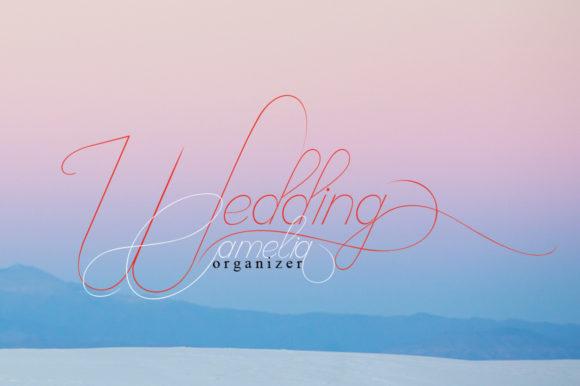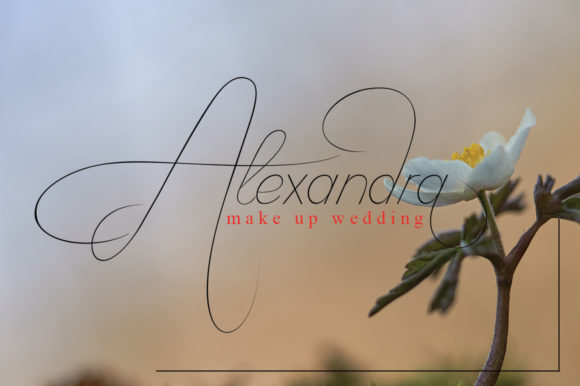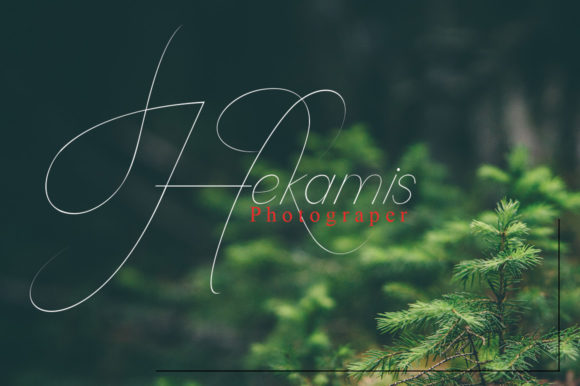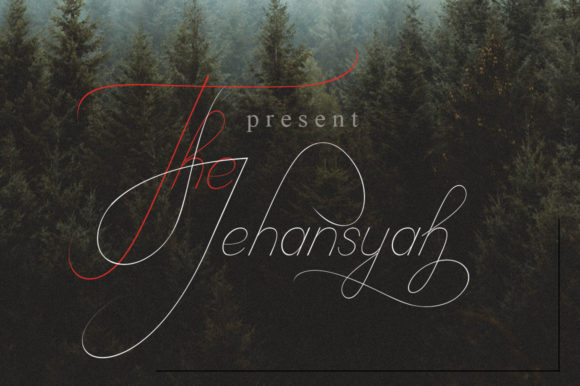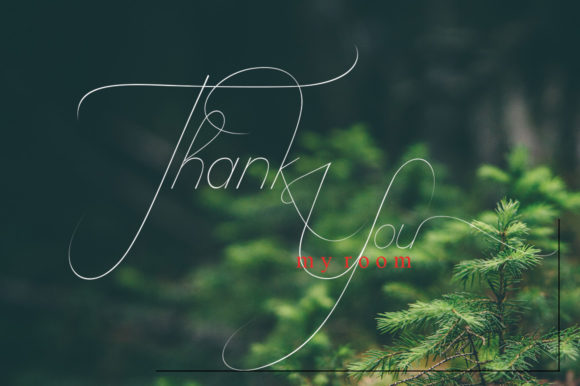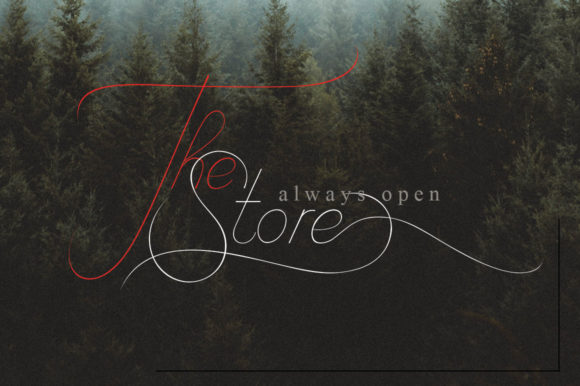
The Perfect Script Font for Your Designs: Camelia Script Font
Have you ever been scrolling through your social media feeds, and suddenly, a beautifully designed post catches your eye? The combination of colors, graphics, and typography all come together to create a visually stunning piece that makes you stop and stare. For many designers, that ‘aha’ moment is what drives them to create something truly special. And, for those of us who love a good script font, the Camelia Script Font is about to become your new go-to.
This adorable monoline script font is more than just a pretty face – it’s the perfect addition to any design project that needs a touch of elegance and sophistication. Whether you’re working on a wedding invitation, a blog post, or a social media campaign, the Camelia Script Font is sure to add a level of sophistication that will elevate your designs to the next level. And, with its versatility, you can use it in a variety of settings, from feminine and sweet to modern and chic.
Key Features of Camelia Script Font
- Unique Characteristics: Elegant, cursive script with swashes and flourishes, perfect for creative and artistic designs
- Font Style: Script, Casual, and Handwritten styles available
Camelia Script Font Review
As a designer, I’ve had the chance to work with the Camelia Script font, and I must say it’s a beautiful addition to any project. ✨ Its elegant and flowing script style is perfect for creating a sense of sophistication and luxury.
The font’s versatility is one of its strongest points. It can be used for a variety of purposes, from wedding invitations to branding and marketing materials. The font is also highly legible, making it easy to read even at smaller font sizes.
Here are some of the things I like about Camelia Script:
- ✨ Elegant and flowing script style
- ✨ Highly legible, even at smaller font sizes
- ✨ Versatile and suitable for various purposes
- ⚠️ Limited character set, which may require additional fonts for special characters
- ⚠️ May not be suitable for body text, as it can be quite ornate and overwhelming
Overall, I’m quite impressed with the Camelia Script font. It’s a great choice for designers looking to add a touch of elegance and sophistication to their projects.
The Camelia Script Font is ideal for:
– Creating elegant and sophisticated invitations and wedding stationery.
– Designing branding materials such as logos and business cards.
– Adding a touch of elegance to social media graphics and blog posts.
Tips for Getting the Most Out of the Camelia Script Font
Experiment with different font sizes, colors, and styles to achieve the desired effect.
– Pair the Camelia Script Font with other elegant fonts to create a unique and sophisticated look.
– Use the font in combination with graphics and illustrations to add visual interest to your designs.
Q: What is the recommended font size and line spacing for the Camelia Script Font?
For optimal readability, we recommend using the Camelia Script Font at a size between 12 and 24 points. In terms of line spacing, a minimum of 120-150% of the font size is recommended to ensure clear readability and avoid clutter.